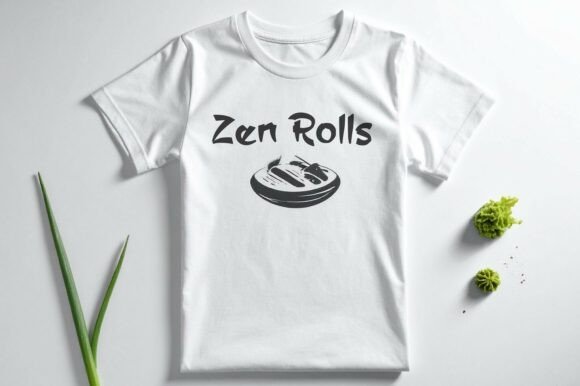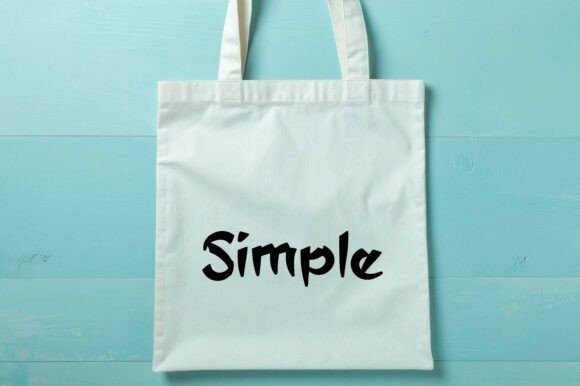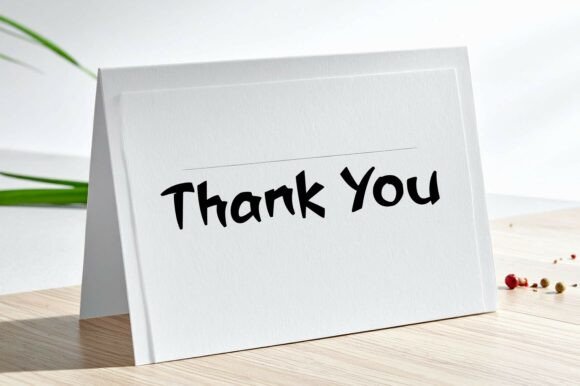
Bumbu Sushi Font: Elevate Your Designs with Elegant Japanese Flair
Are you a designer or crafter looking to add a touch of Japanese elegance to your work? Look no further than the Bumbu Sushi font. This bold and artistic display font is inspired by the intricate beauty of Japanese culinary art, with a modern, handcrafted twist. In this article, we’ll dive into the unique features and benefits of Bumbu Sushi, and explore how it can elevate your designs to the next level.
The Inspiration Behind Bumbu Sushi
Bumbu Sushi font draws its unique charm from the free-flowing finesse of sumi-e ink painting and expressive calligraphy. These traditional Japanese art forms are renowned for their emphasis on harmony, balance, and fluid movement. By incorporating these elements into a modern font, Bumbu Sushi brings a level of sophistication and refinement to any design.
A Perfect Balance of Elegance and Simplicity
One of the standout features of Bumbu Sushi is its ability to strike a flawless harmony between elegance and simplicity. This font exudes an atmosphere of meticulous craft, unwavering precision, and an intense ardor for cuisine. Whether you’re designing a logo, branding identity, or packaging, Bumbu Sushi will add a touch of warmth and sophistication to your work.
Exceptional Versatility for Various Applications
The exceptional versatility of Bumbu Sushi font makes it an excellent choice for various specialized application areas. Its elegance sparkles in designing branding identities for Japanese restaurants, cafes, and food-related businesses. Additionally, it can be used for:
- Packaging design: Add a touch of Japanese flair to your product packaging and make it stand out on store shelves.
- Advertising: Use Bumbu Sushi to create eye-catching ads that evoke the sophistication and refinement of Japanese culture.
- Web design: Elevate your website’s typography with Bumbu Sushi, and create a lasting impression on your visitors.
- Stationery: Create beautiful business cards, letterheads, and envelopes that showcase your brand’s personality.
Why Choose Bumbu Sushi Font?
So, why should you choose Bumbu Sushi font for your next design project? Here are just a few compelling reasons:
- Unique and artistic: Bumbu Sushi is a one-of-a-kind font that will set your design apart from the rest.
- Elegant and sophisticated: This font exudes refinement and poise, making it perfect for high-end designs.
- Versatile: Bumbu Sushi can be used in a wide range of applications, from branding to packaging to web design.
In conclusion, Bumbu Sushi font is a bold and artistic display font that brings the intricate elegance of Japanese culinary art to your designs. With its perfect balance of elegance and simplicity, exceptional versatility, and seamless integration with design software, Bumbu Sushi is an excellent choice for designers and crafters looking to add a touch of Japanese flair to their work. Whether you’re creating branding identities, packaging, or advertising materials, Bumbu Sushi font is sure to elevate your designs to the next level.